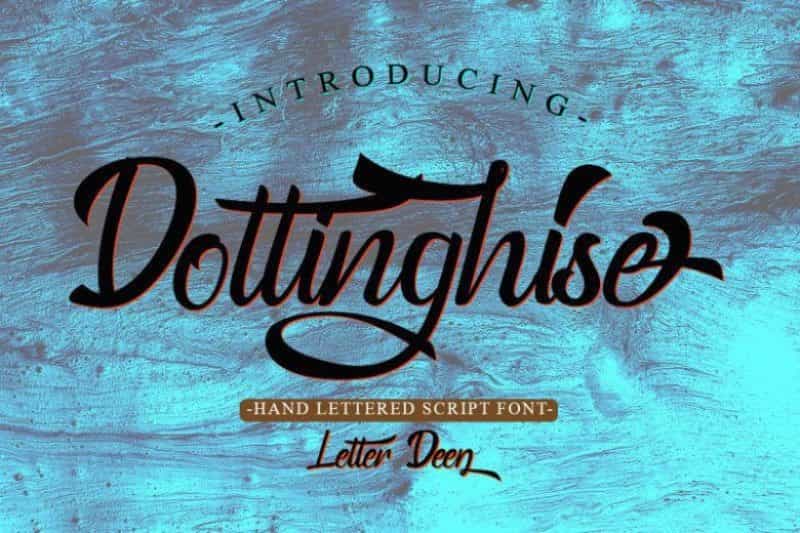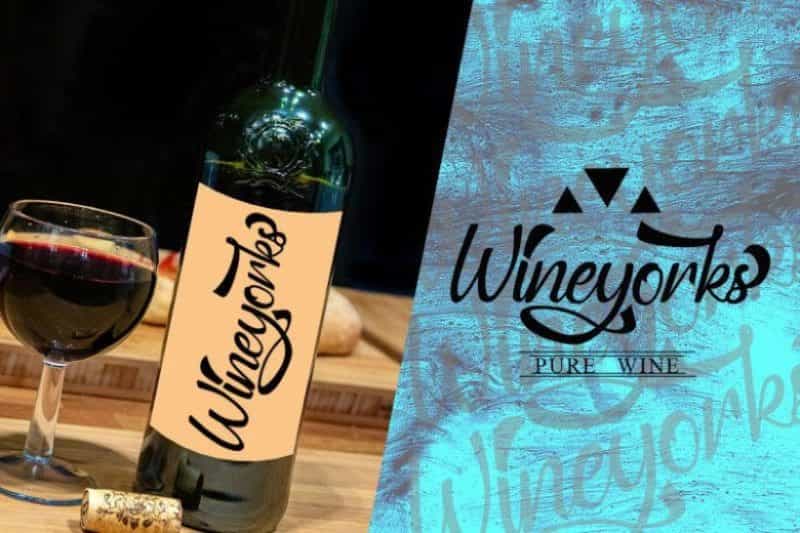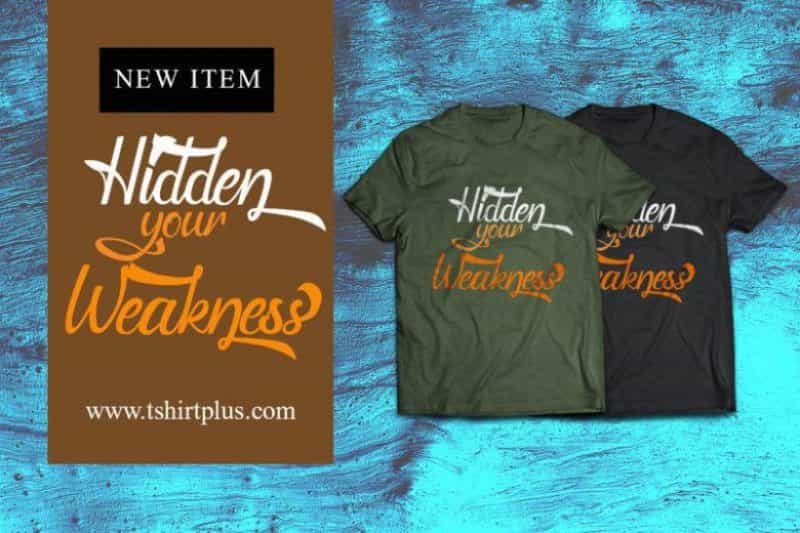
Discover Dottinghise Script Font, part of the Brush Calligraphy Handwritten collection—a versatile and unique font perfect for adding a personal touch to your projects. Download it for free and enjoy crafting designs with style, from invitations to social media posts. This font is available exclusively for personal use, giving you the freedom to create without limits. Unlock your creativity with Dottinghise Script Font today!
Dottinghise Script Font is a Handmade, Smooth, Modern and Classic, Calligraphy Wavy font which is design to fulfill your next design requirements. Still Shine, can be used for different purposes. like the title, slogan, logo, heading, wedding cards, letterhead, billboards, tags, newsletters, posters, badges, and so on.